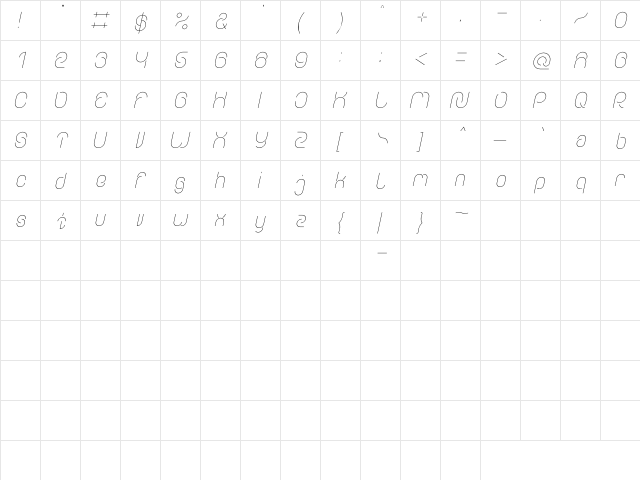
EVERYTHING Italic
Design Context for EVERYTHING Typeface
EVERYTHING takes a measured approach to typography — its balanced proportions and neutral character make it a reliable workhorse for both digital and print work. The slanted form adds forward momentum and visual energy. The delicate stroke weight brings airiness and refinement to layouts.
Pro Tip: Use EVERYTHING for emphasis, pull quotes, and subheadings where its slanted energy can add rhythm to the layout.